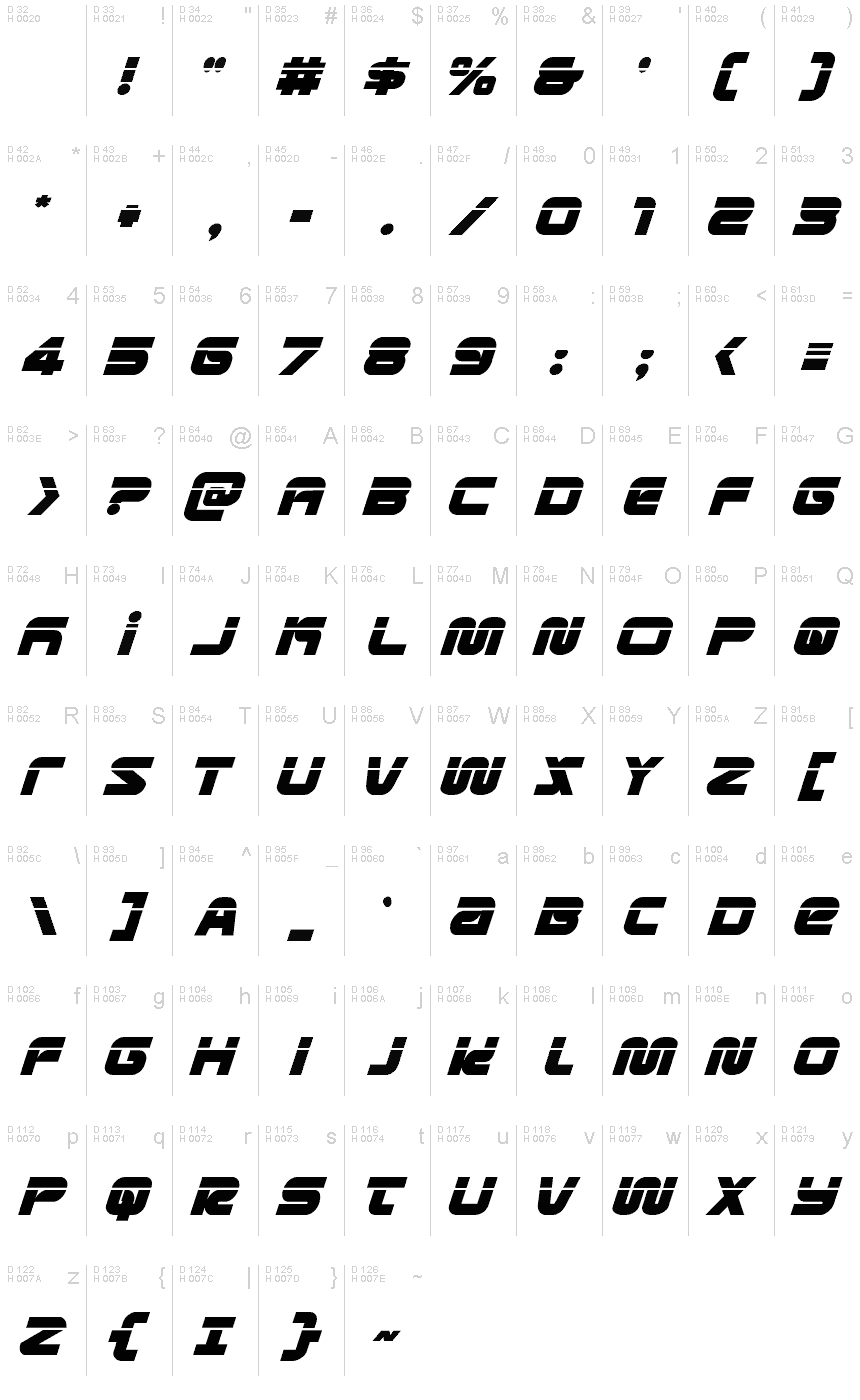
Metronauts Laser Italic
Metronauts Laser Italic is a bold, futuristic display font that commands attention. Designed by Daniel Zadorozny, this expanded typeface exudes a striking, technological aesthetic. Its sleek, angular letterforms and razor-sharp edges evoke a sense of speed and modernity. The italic styling adds a dynamic, forward-leaning flair, lending a sense of movement and energy to the design.
This font is well-suited for a variety of applications, from eye-catching headlines and logo designs to sci-fi-inspired branding and packaging. Its bold, assertive presence makes it an ideal choice for creating a visually impactful and futuristic visual identity. Metronauts Laser Italic is a versatile tool for designers seeking to craft a contemporary, high-tech aesthetic in their projects.